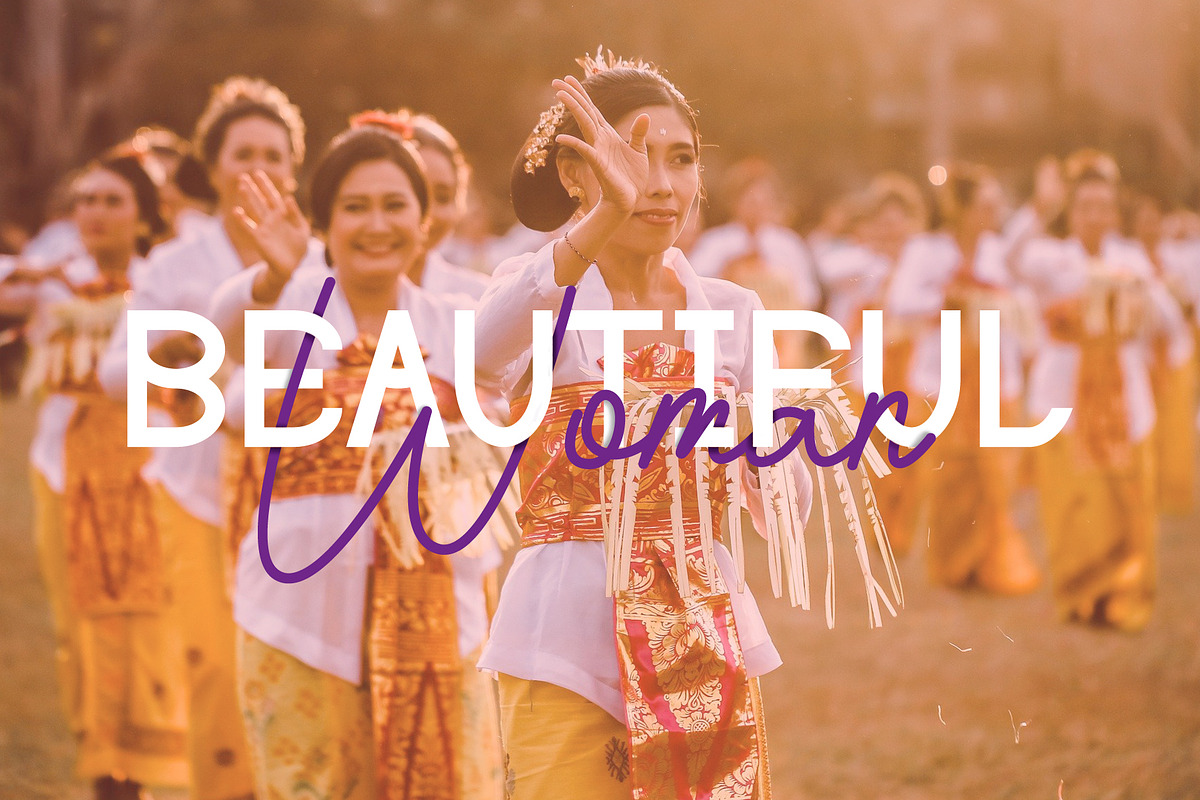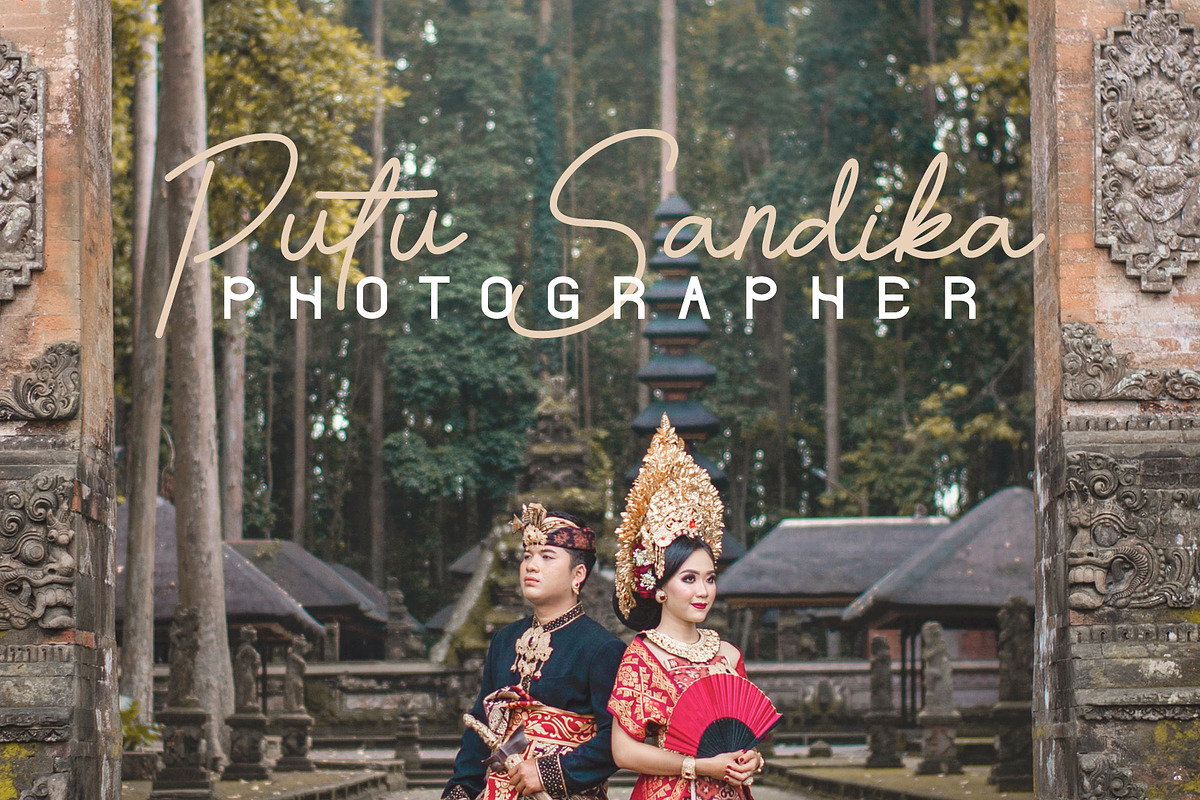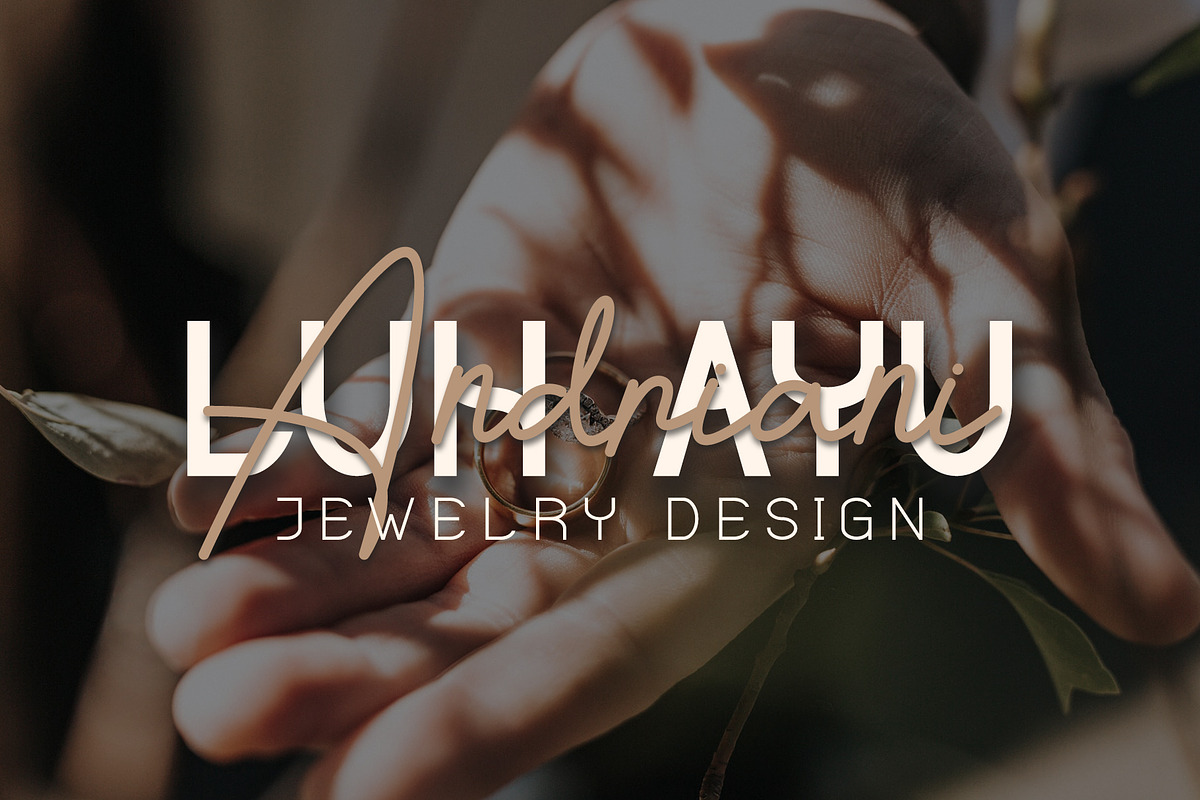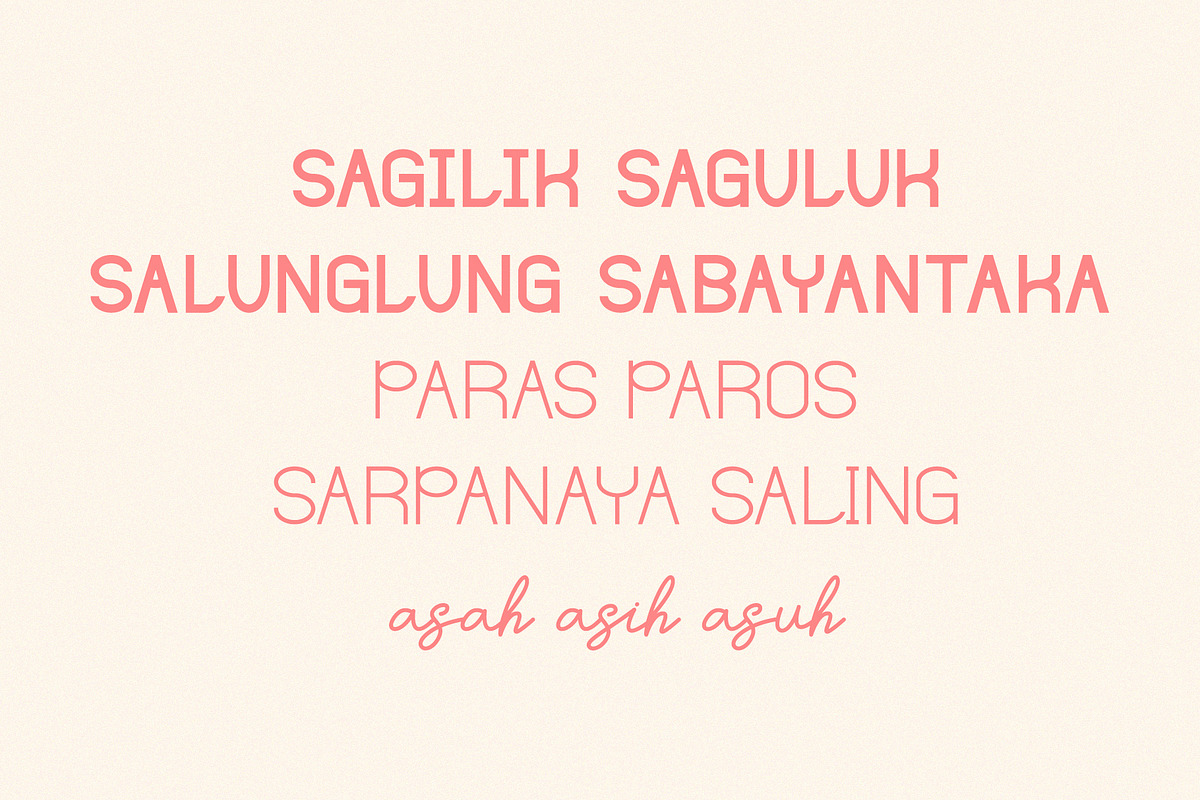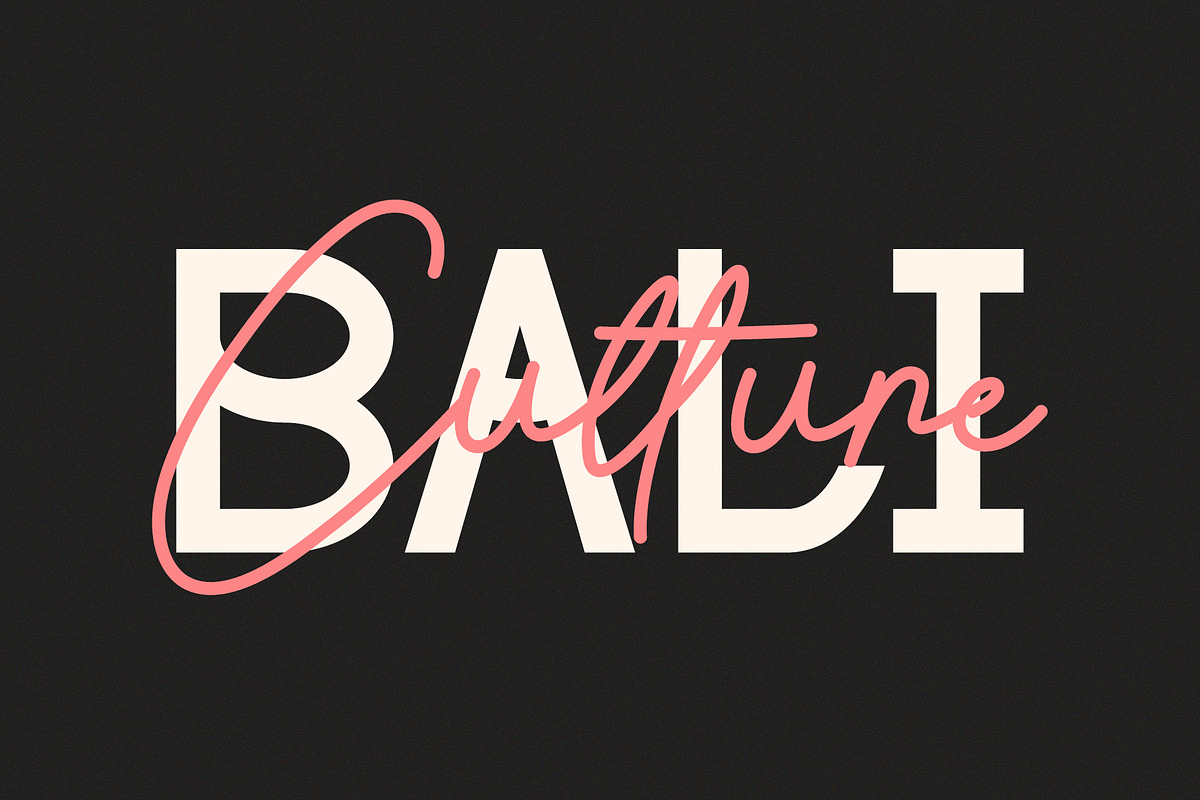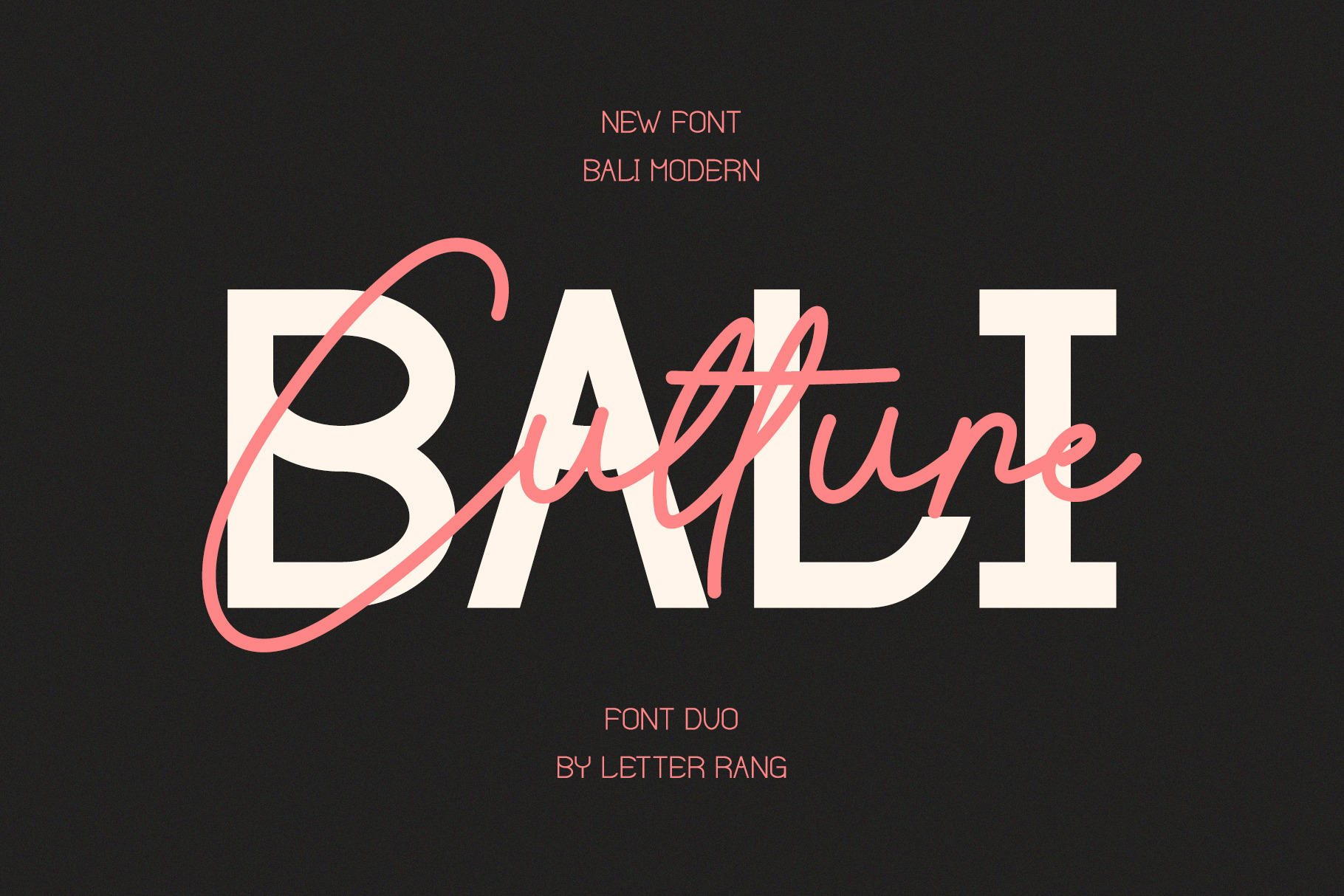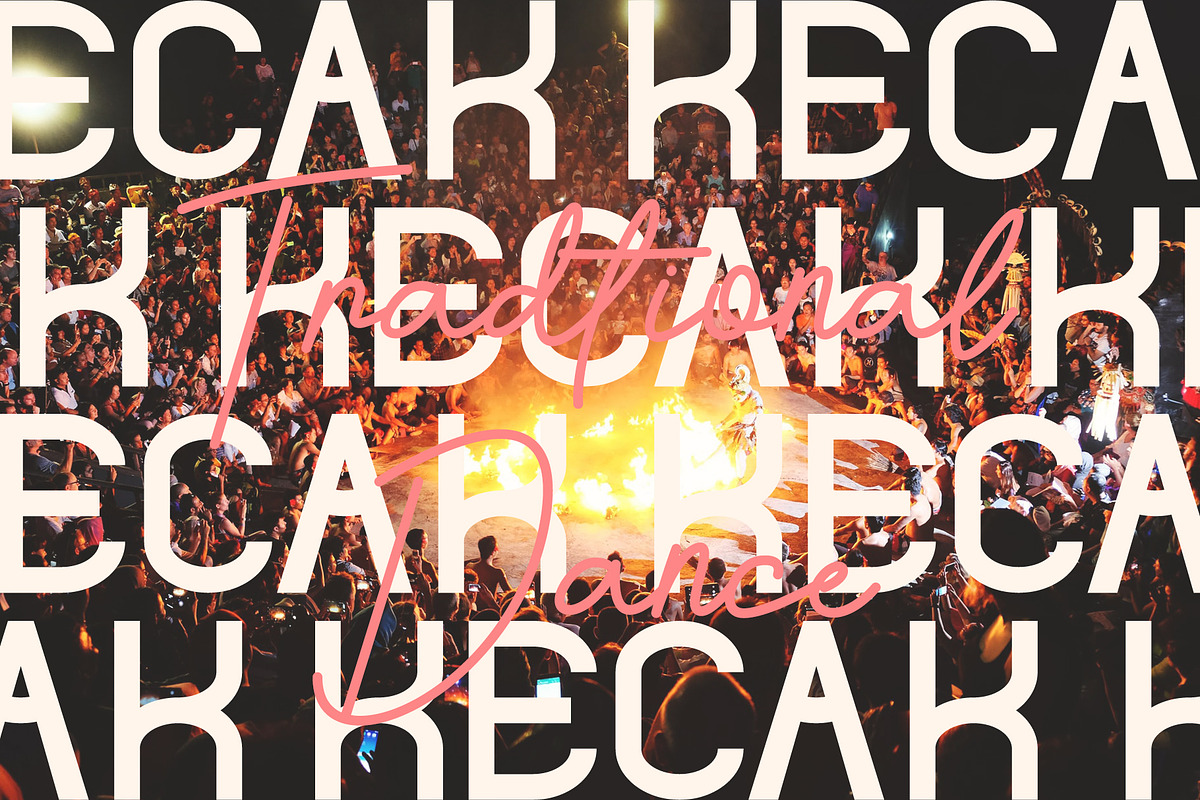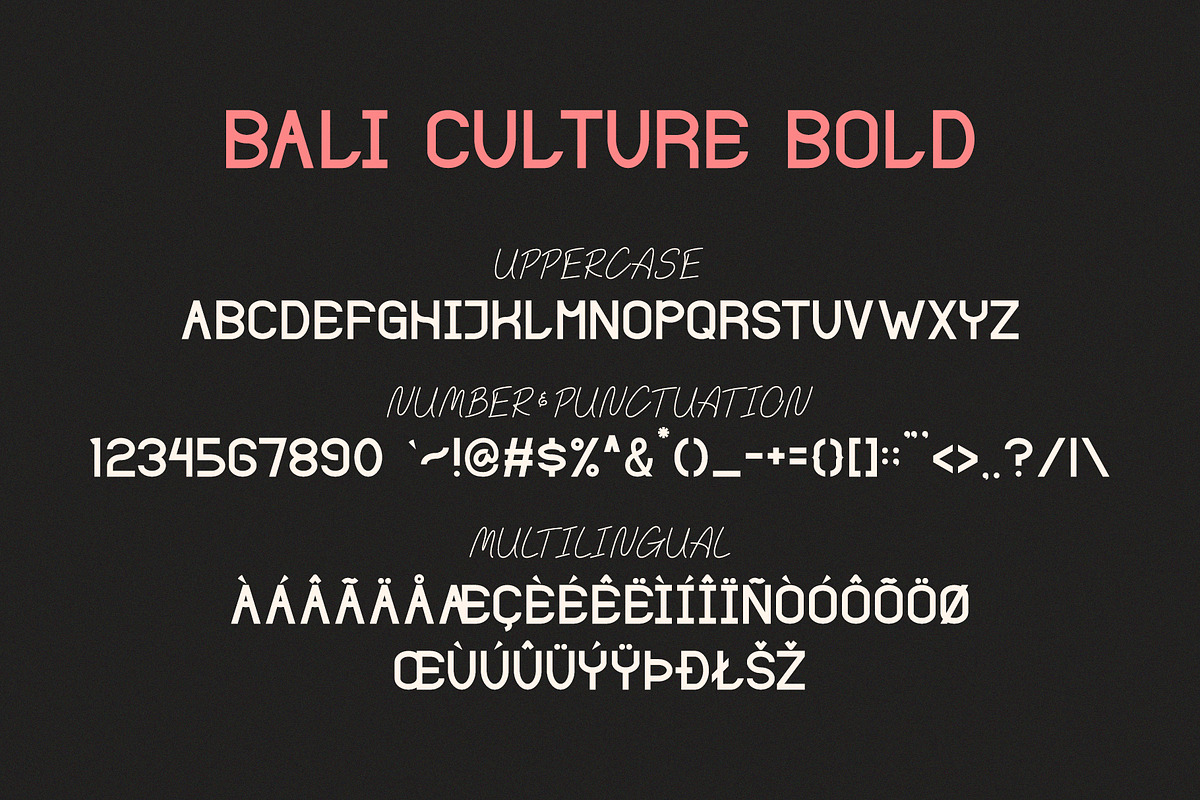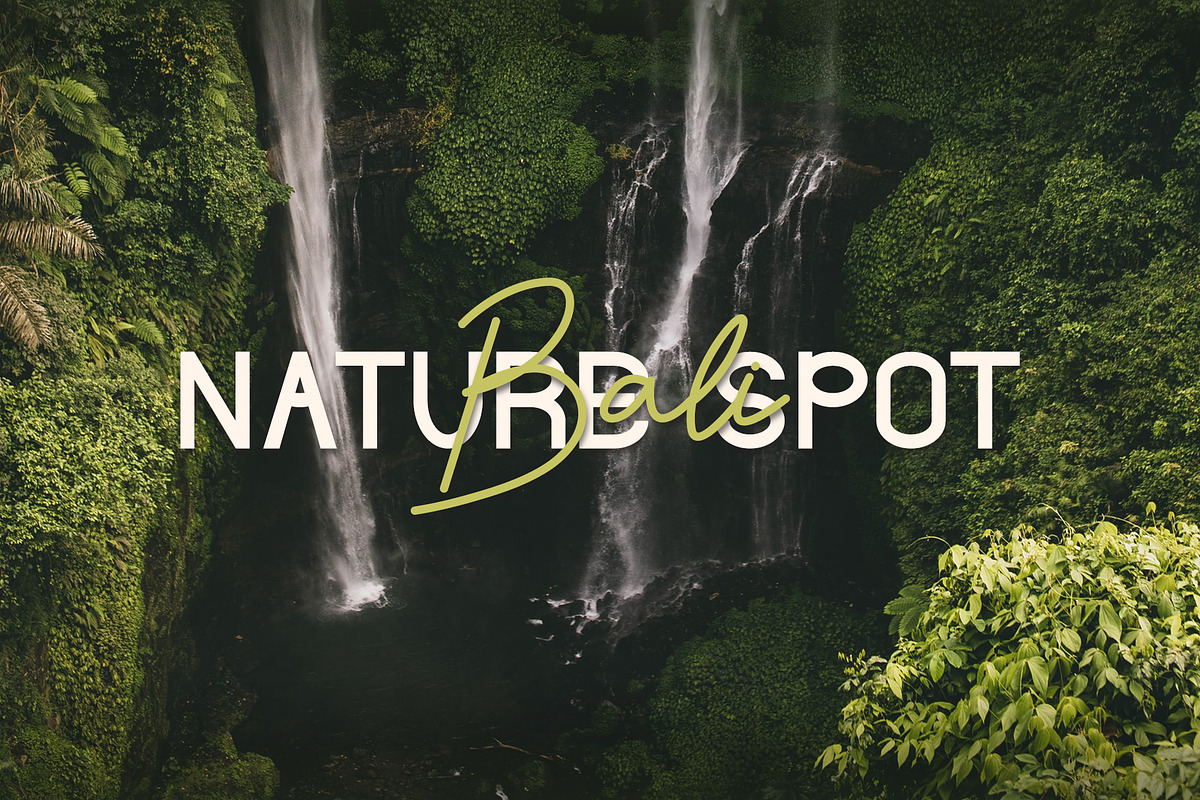
Bali Culture Font Duo
Hi all. How are you, I hope you are doing well. I will introduce my new font called "Bali Culture".
Bali Culture is two fonts consisting of script fonts and display fonts. This font is inspired by Balinese culture. This font is perfect for book covers, story titles, magazine designs, feed designs, brands, logos, identities, and much more.